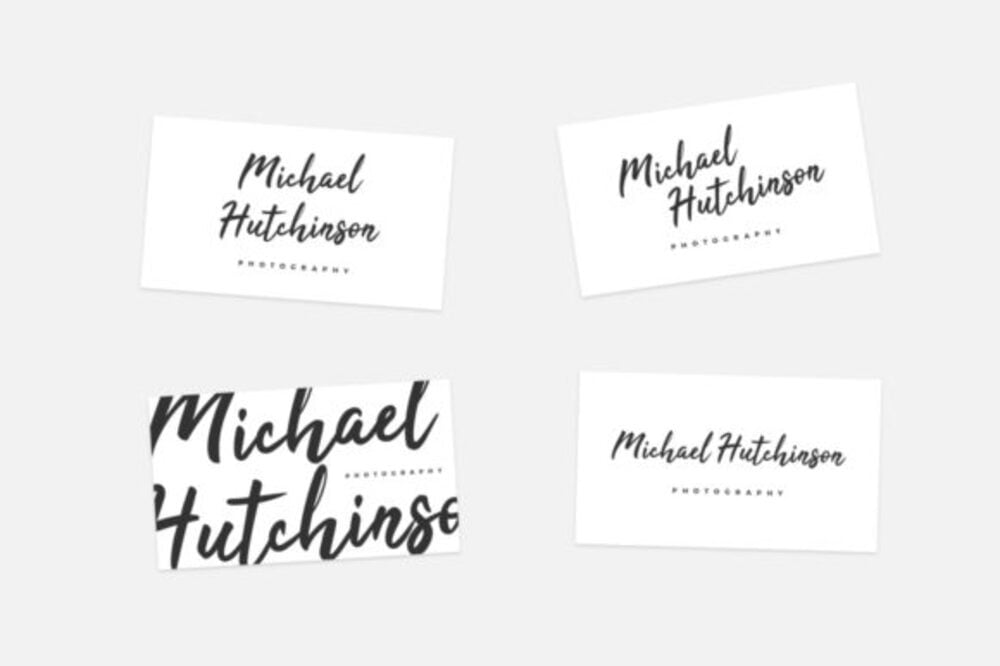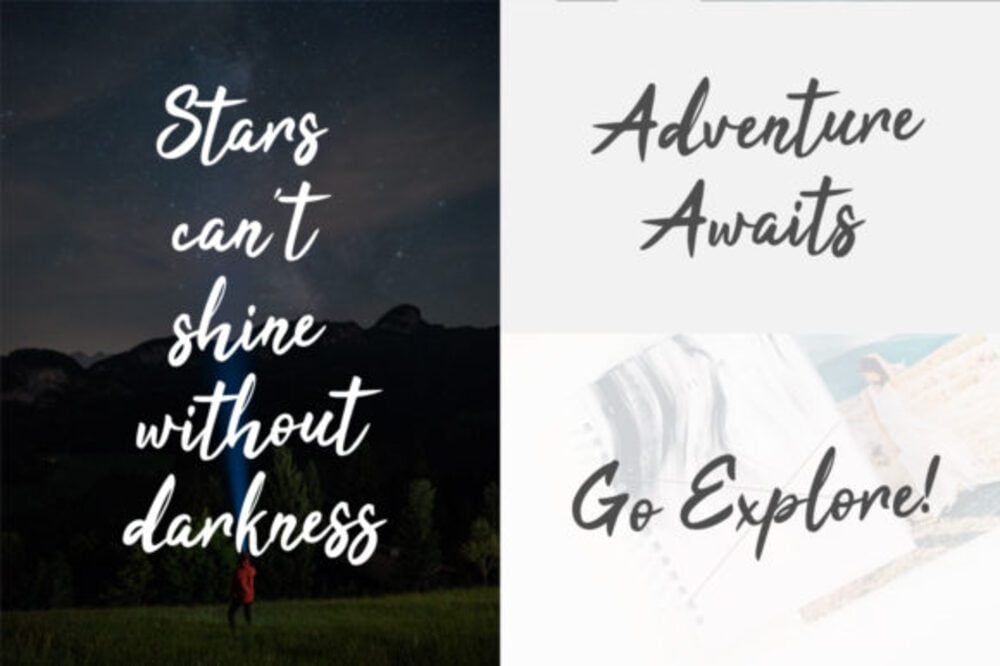
Tahu Font
Tahu Font is a sleek and minimalist script typeface that combines elegance with modern simplicity. Its smooth, flowing strokes make it ideal for branding, logos, invitations, and social media graphics. Versatile and stylish, Tahu adds a personal touch while maintaining a clean aesthetic. Perfect for those seeking sophistication with a contemporary edge, this font elevates any design effortlessly.